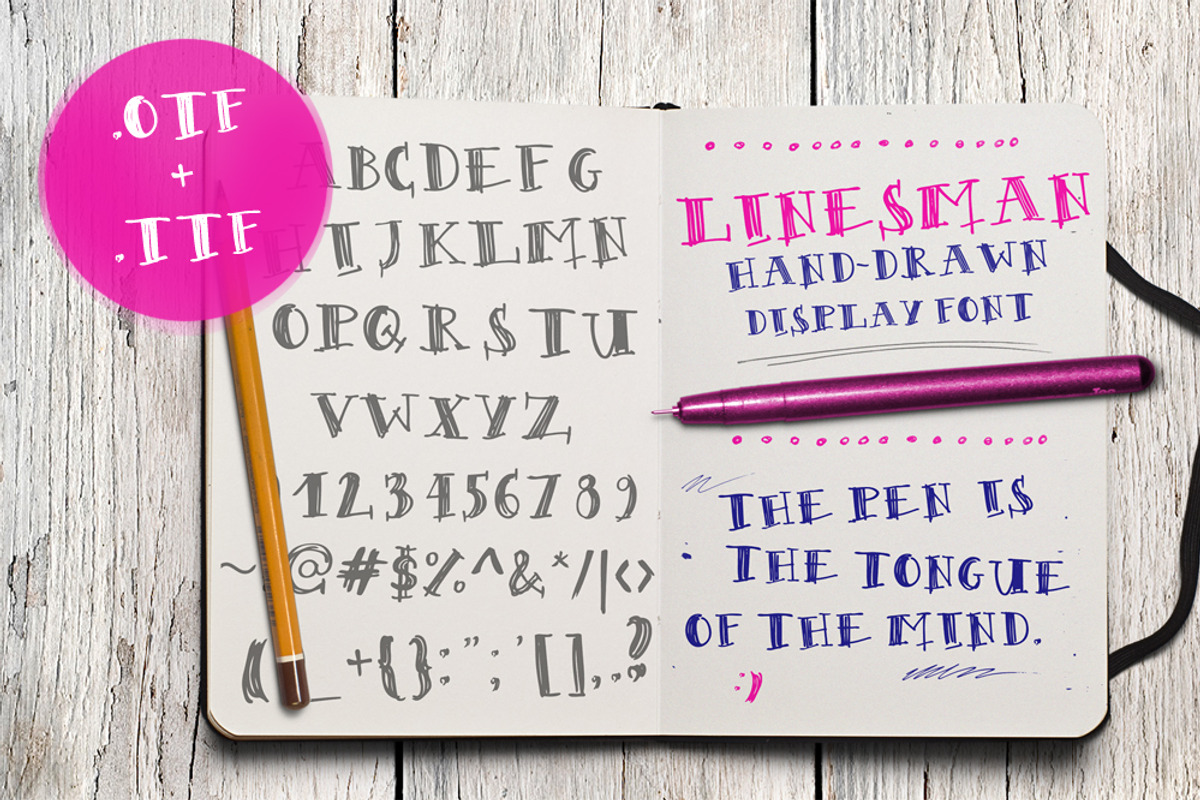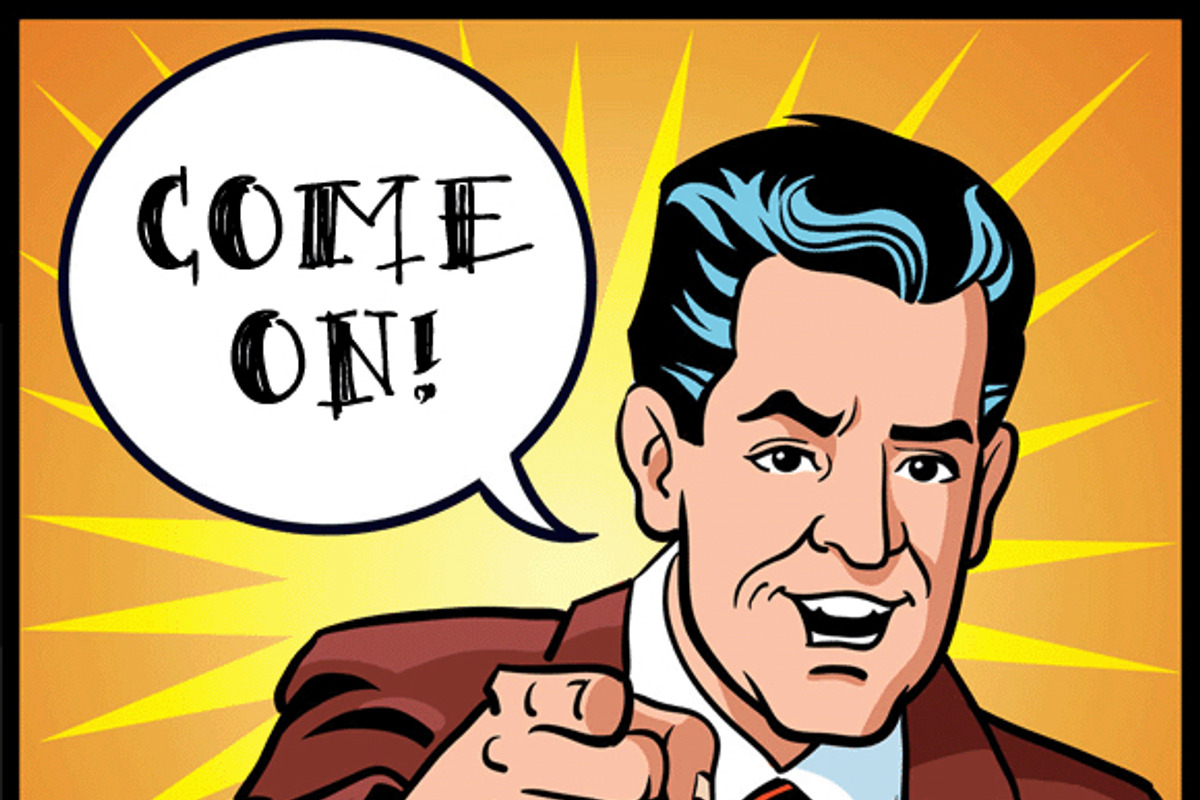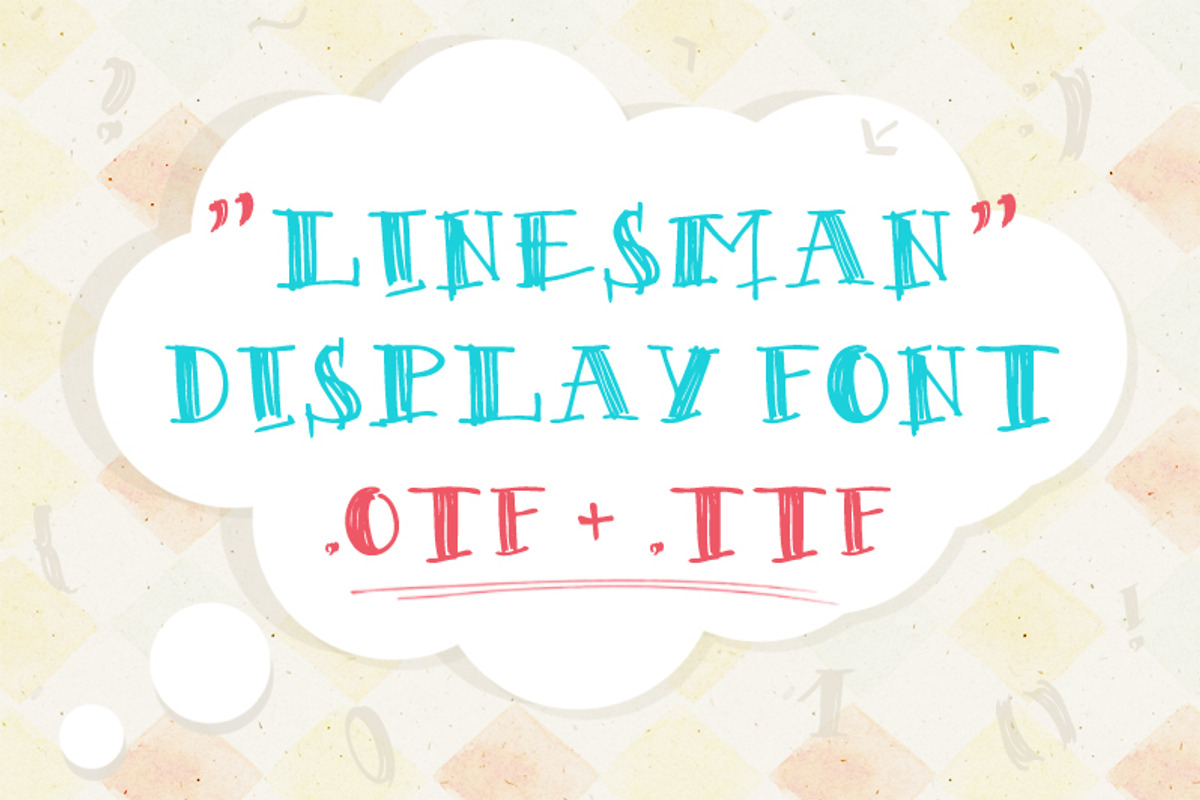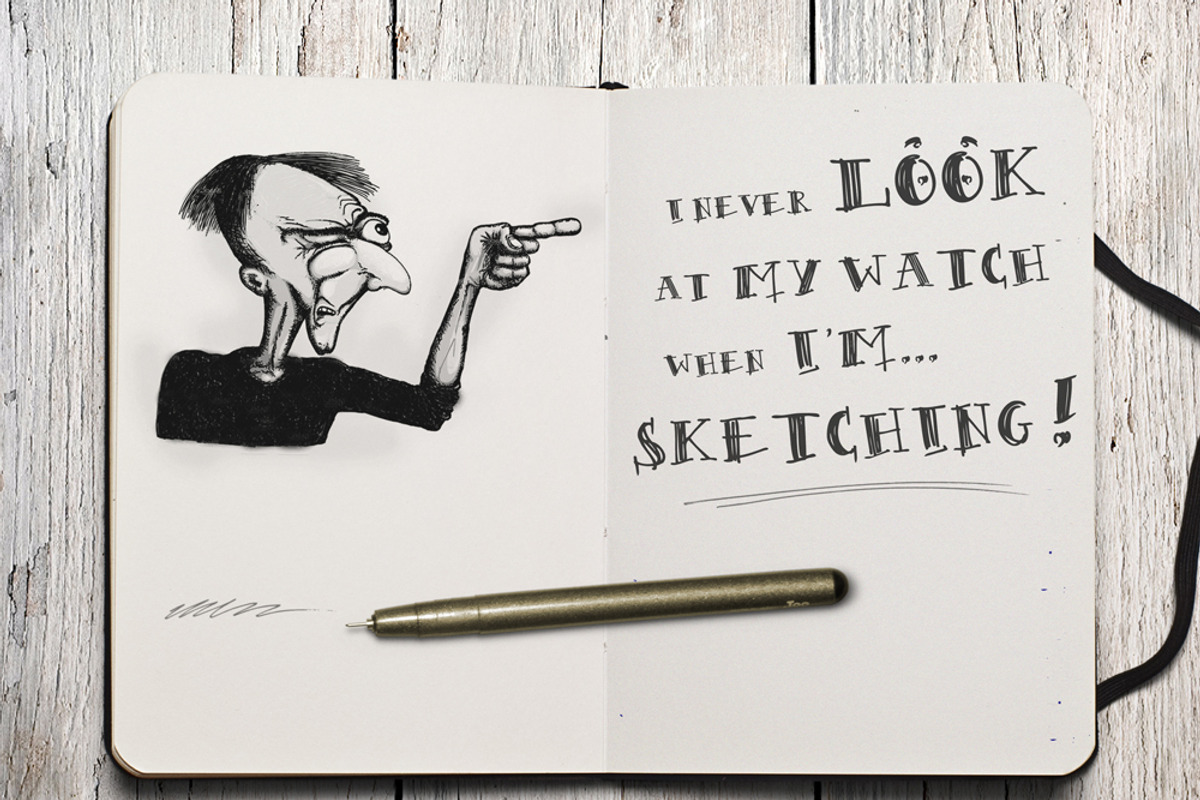
Linesman Font
Linesman Font by Frisk Shop is a font selected for branding, posters, packaging, typography.
Why Linesman Font is worth a look
Linesman Font by Frisk Shop fits naturally into Branding, posters, packaging, typography.